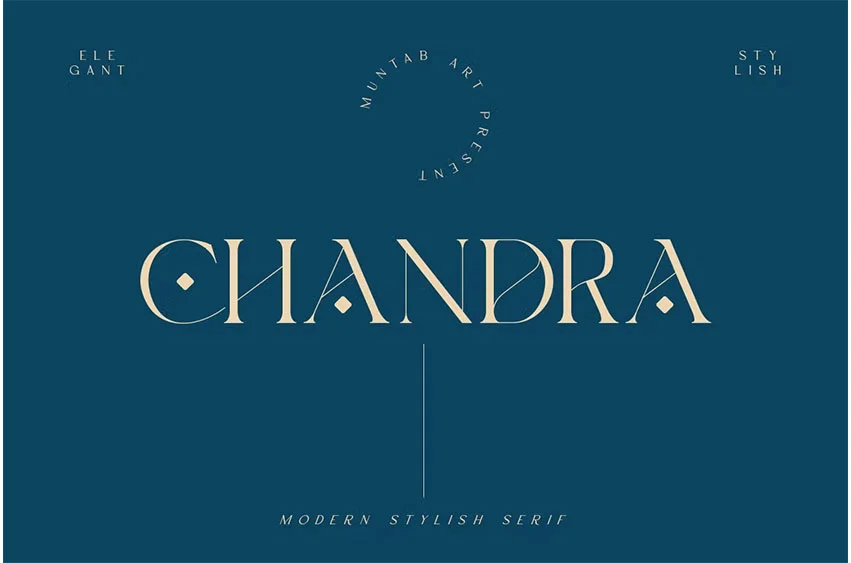
Chandra Font
Chandra Font includes uppercase letters, numerals, and a large range of punctuation. Serif font with modern style. Created for posters, web design, branding, illustrations, badges, and some other works.